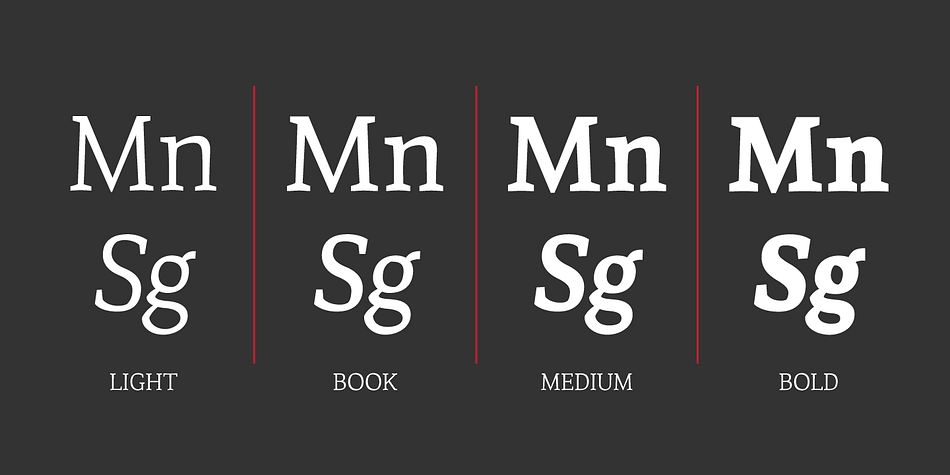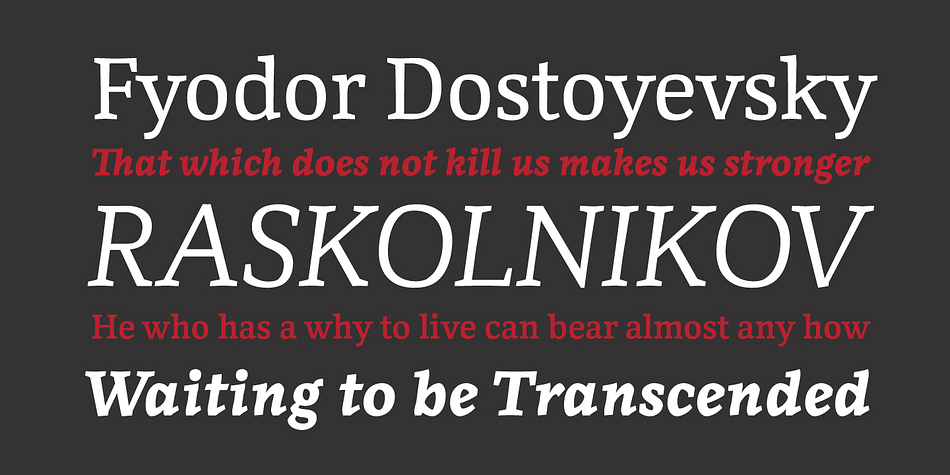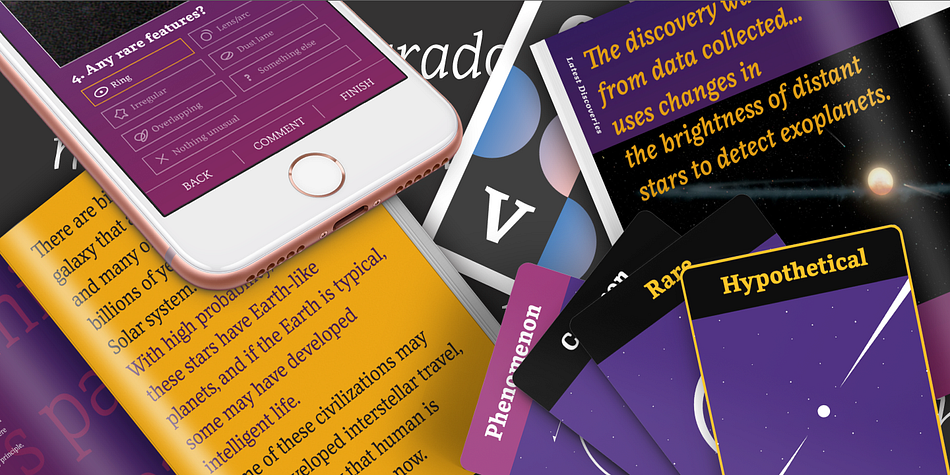
Monark
Designed by Yuexin Huo, Monark is a serif font family. This typeface has eight styles and was published by YXType.
Monark family is designed with legibility and wide language support in mind. Rooted in Fyodor Dostoevsky’s Crime and Punishment, it captures the anguish & distortion atmosphere and suppresses them into ruthless letterforms. Top-heavy stems, heavy serifs, and low-contrast forms are all extractions of Dostoevsky’s dilemma.
Rest assure this typeface would bring you all the needs for advanced typography with true small caps, 4 styles of figures, support for inferior/superiors, and more than 200 Latin languages.
Features:
• Support for 200+ Latin languages
• Unique italic letterforms
• Low contrast with unique details
• Small caps with symbols
• Arbitrary and defined fractions
• Support for superscript & subscript in normal & scientific alignments
• Proportional lining, proportional old-style, tabular lining, tabular old-style